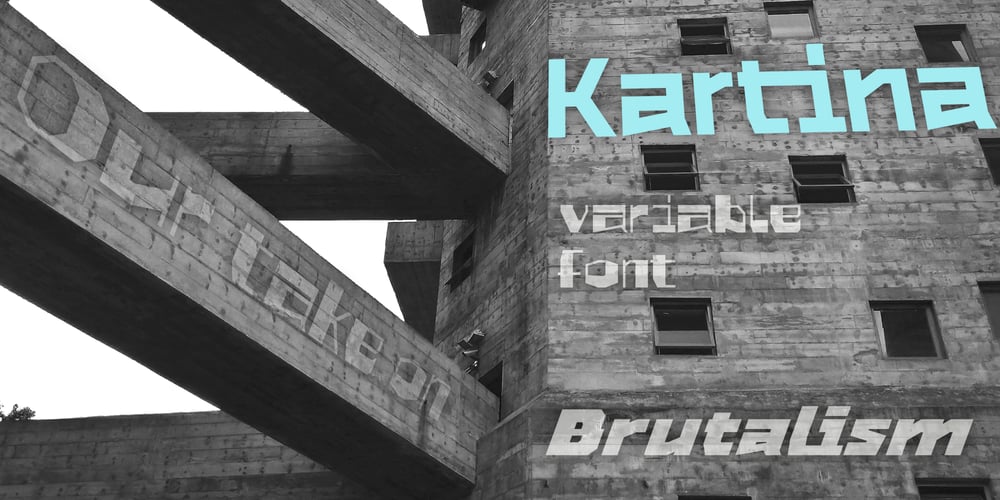
Kartina Font Family was designed by Werner Eschmann and published by Fontroll. Kartina contains 15 styles and family package options. Kartina has no curves – guaranteed. Only straight lines. Musk’s Cybertruck could have been an inspiration for Kartina – but is wasn’t. We merely thought what if brutalist buildings were fonts. How would they look like? Maybe like Kartina? But as simple fonts are not our goal we packed some surprises into Kartina: We made it Variable in three axis: Weight, Kontrast and Slant which gives you a huge variability. OK, not all variations make sense, but perhaps you’ll enjoy them anyway. For those of you unable to use Variable Fonts we added 14 main variants. We put all we could into one font, developed two Kontrast sets, three main weights and added more than 550 glyphs, including most European and Cyrillic languages and some unusual stuff like fractions, arrows, alternate letters and figures or pointing fingers. Enjoy!